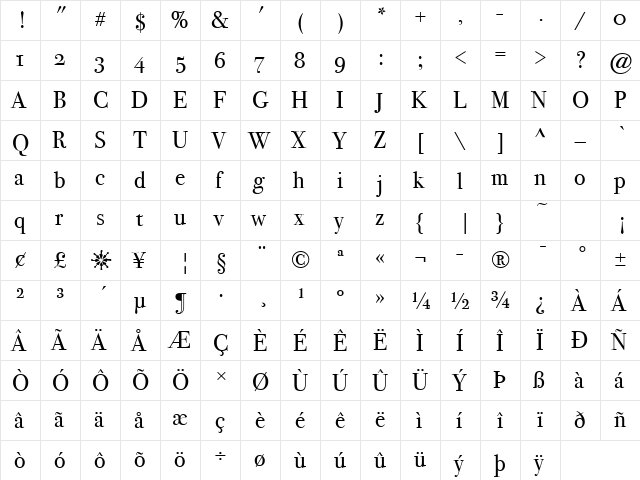
Bodoni SvtyTwo OS ITC TT Book
Design Context for Bodoni SvtyTwo OS ITC TT Typeface
Bodoni SvtyTwo OS ITC TT offers clean, dependable letterforms without strong stylistic allegiance, making it a practical choice for designers who need flexibility.